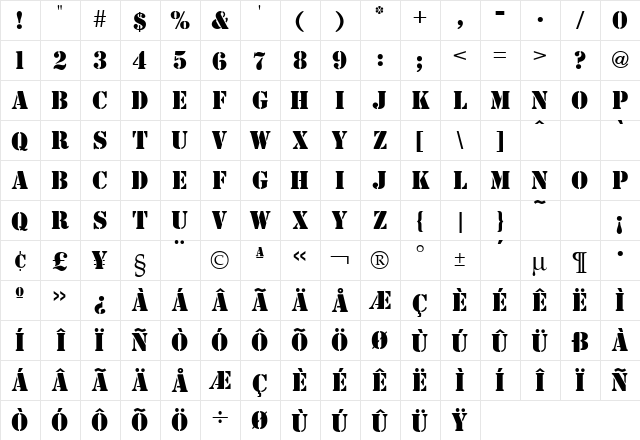
Stencil ICG Regular
Design Context for Stencil ICG Typeface
Stencil ICG borrows the utilitarian aesthetic of stencil lettering, with its characteristic cutaways and no-frills construction lending an industrial edge.
A strong choice for packaging that needs edge, warehouse aesthetics, and rough-and-ready visual identities.
Pro Tip: Use Stencil ICG at large sizes on packaging, posters, or apparel where the stencil cutaways read clearly. Avoid small sizes where those gaps become visual noise.